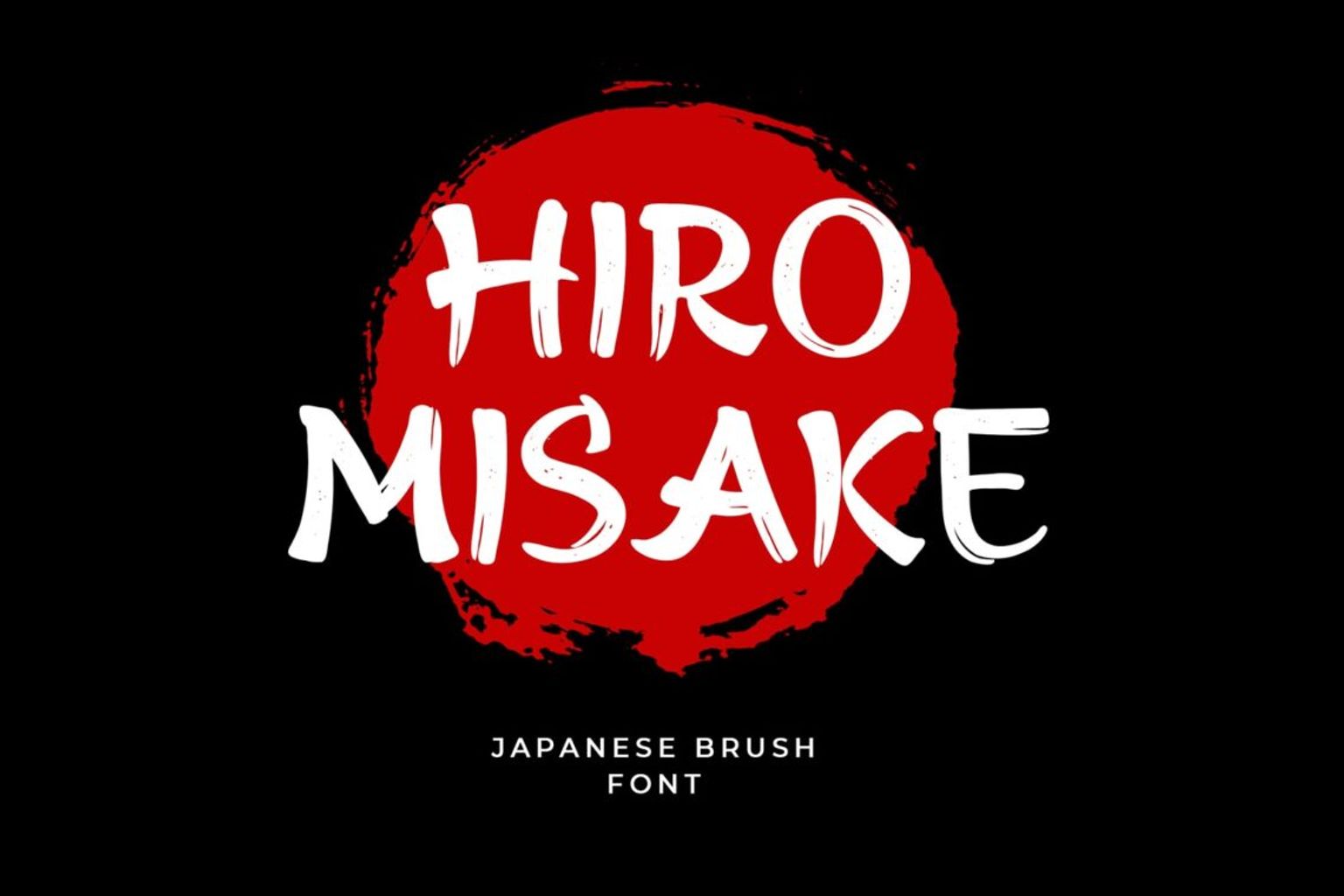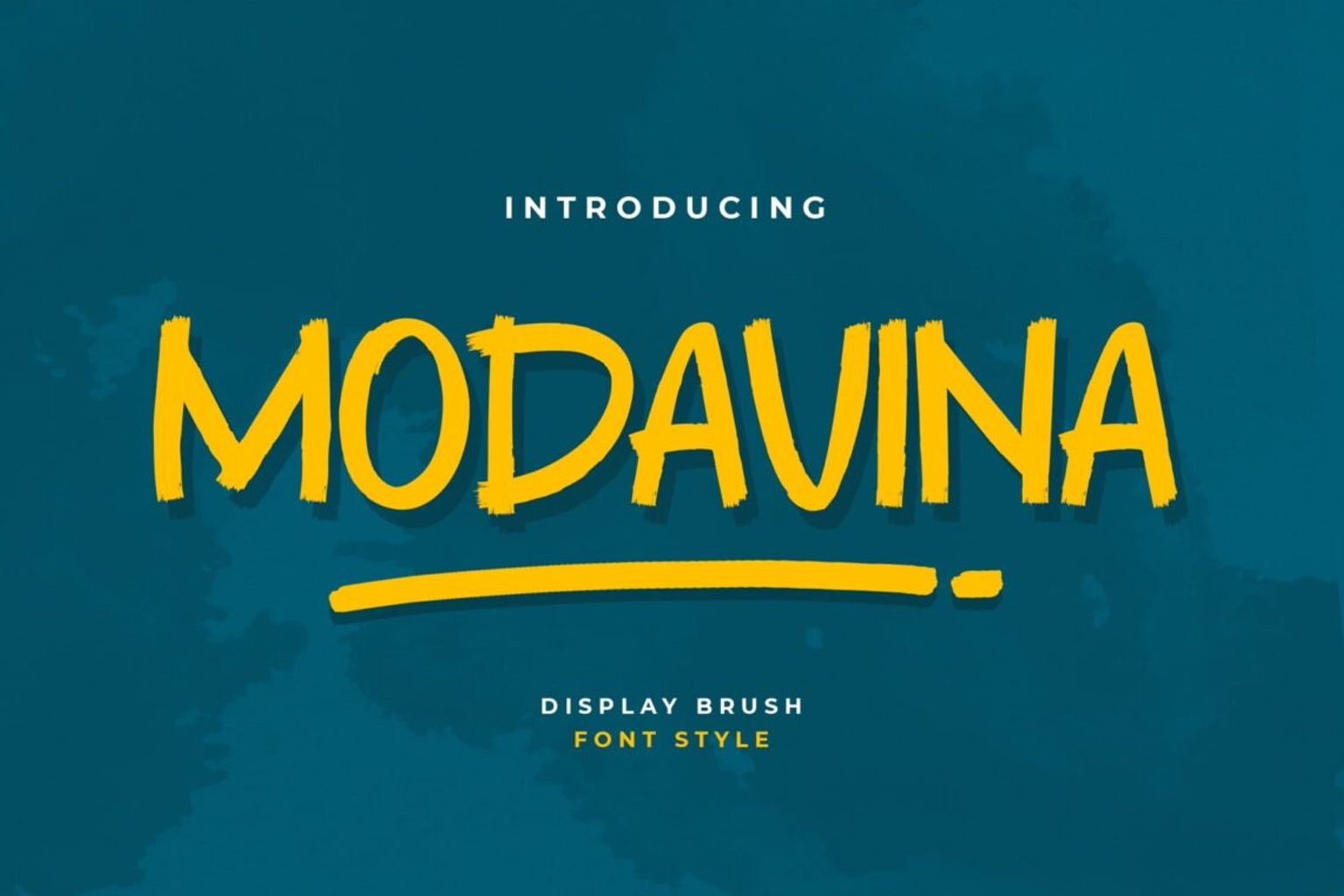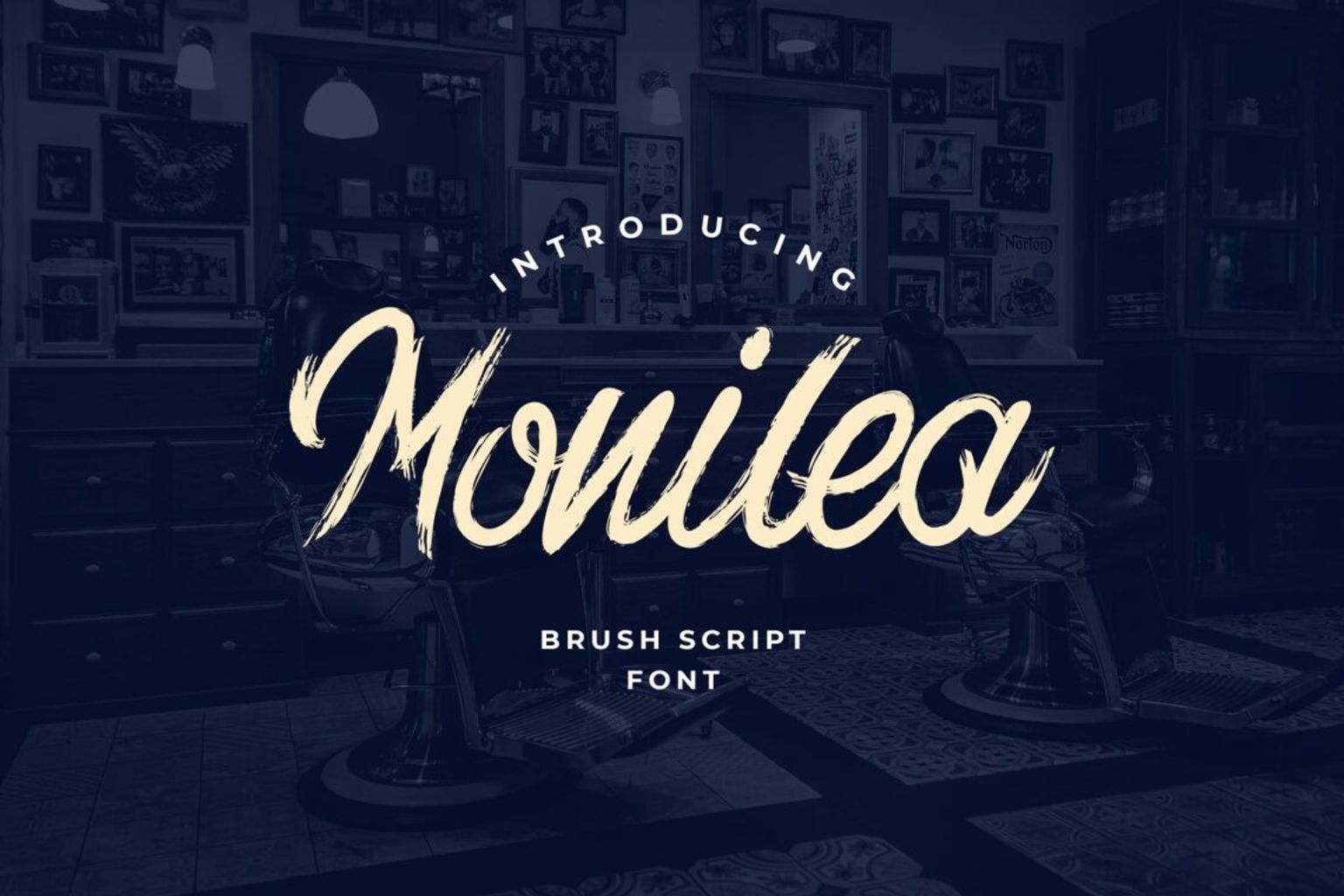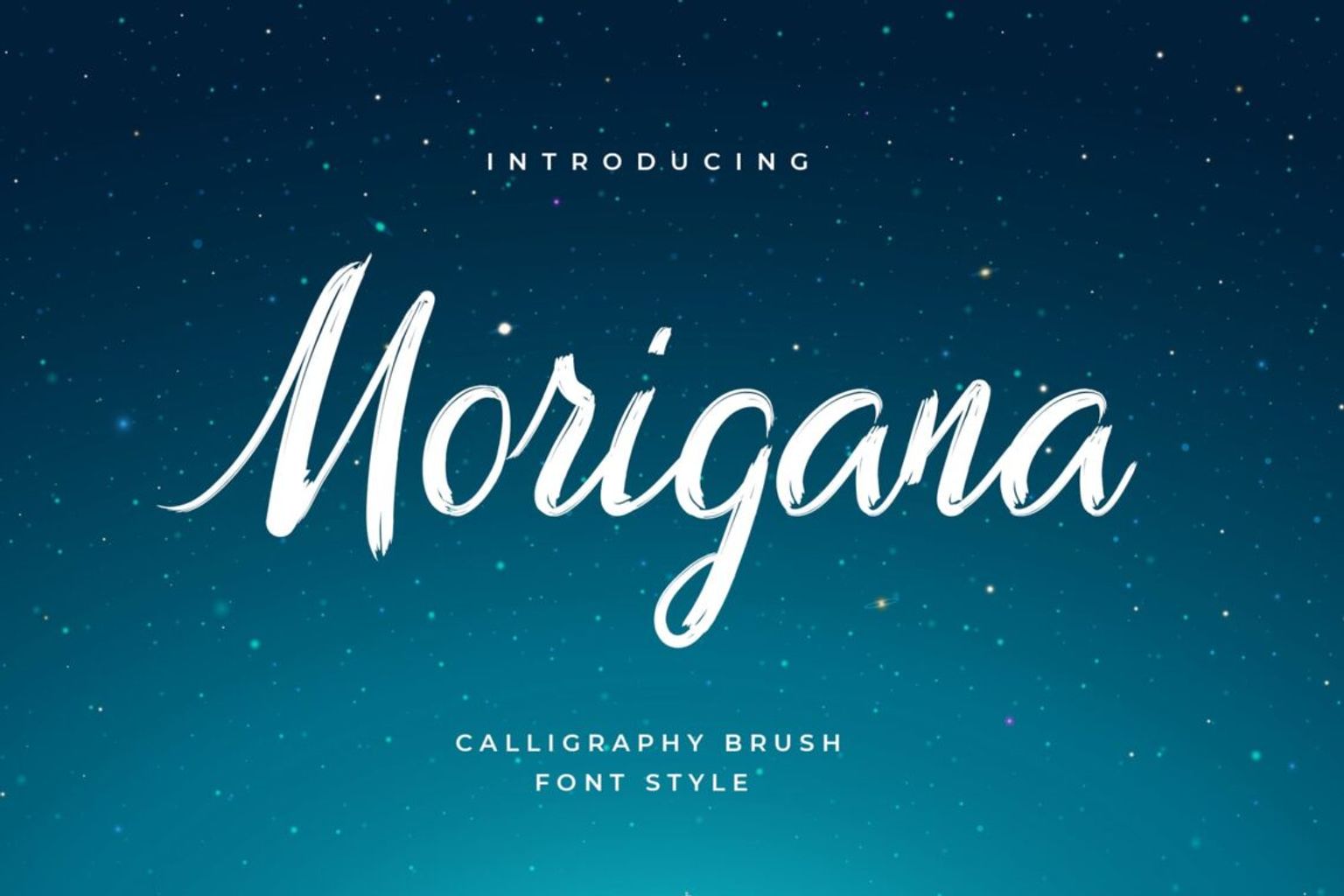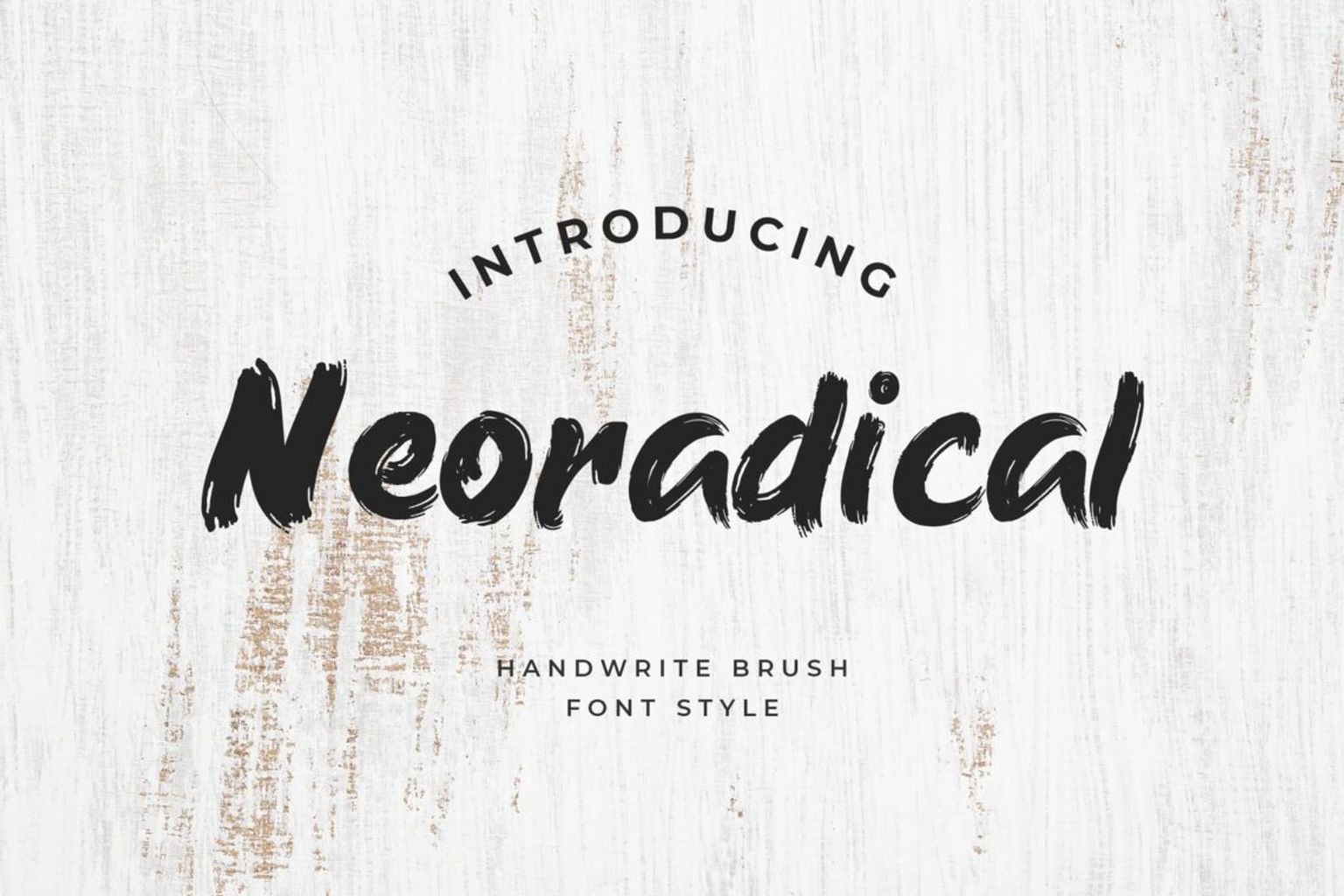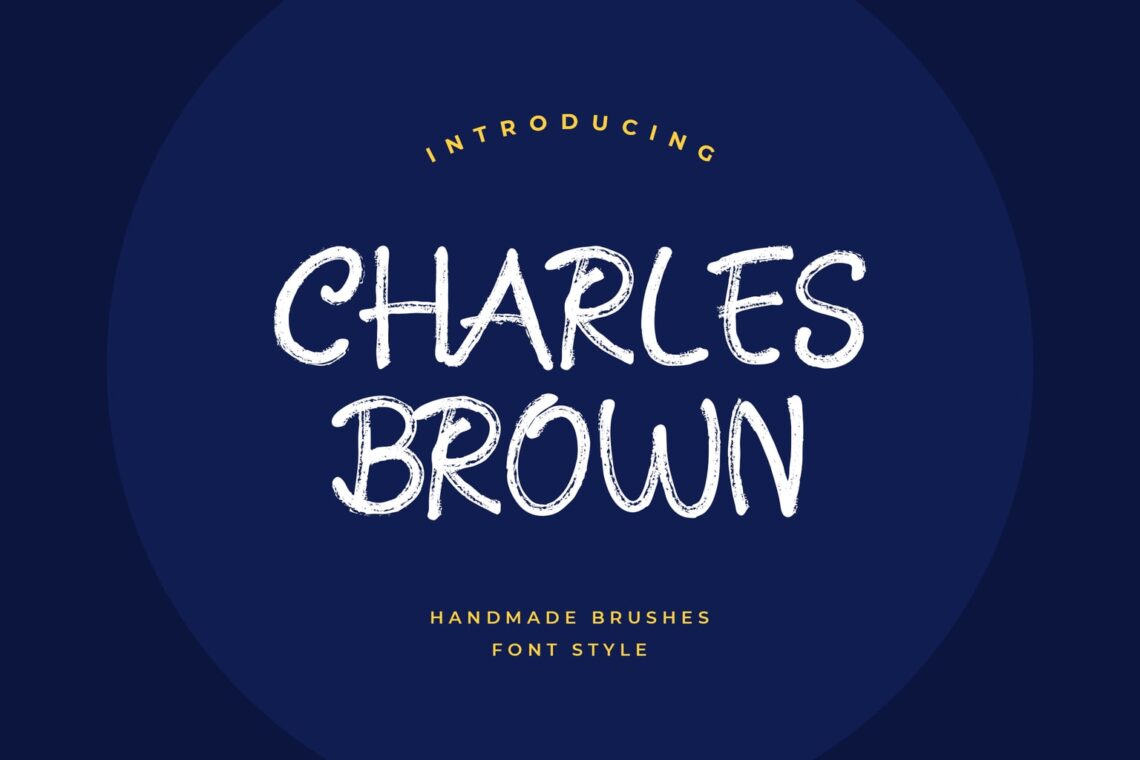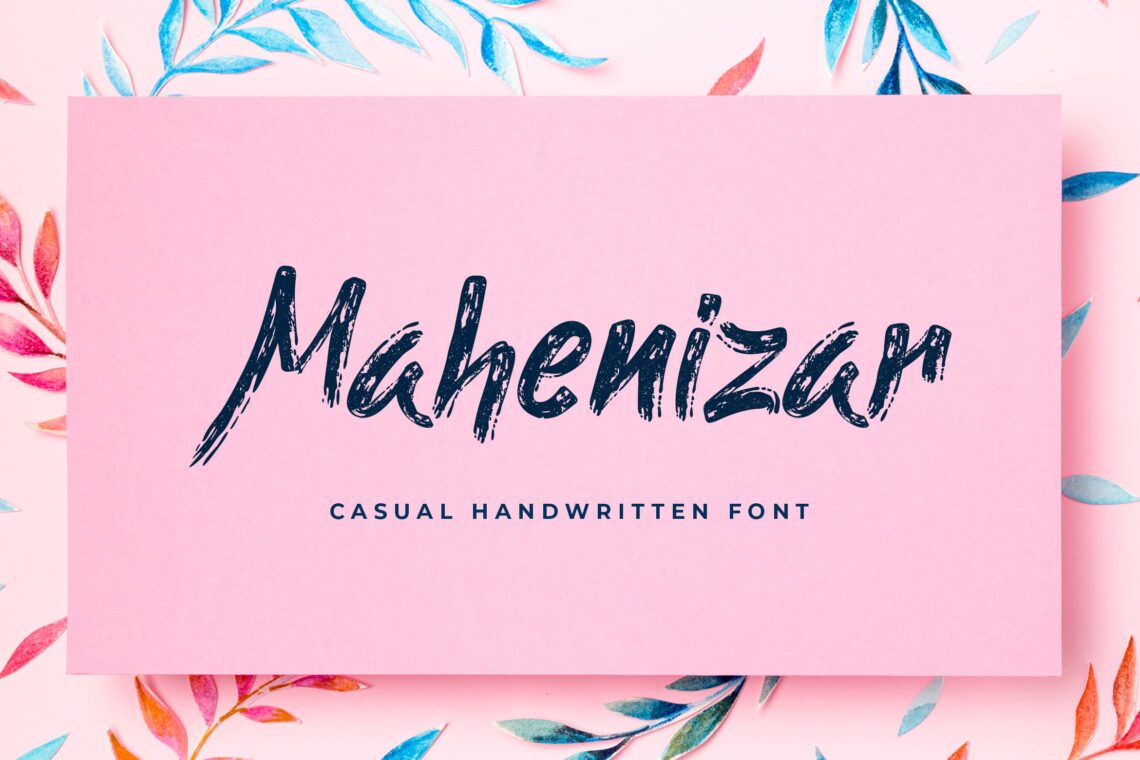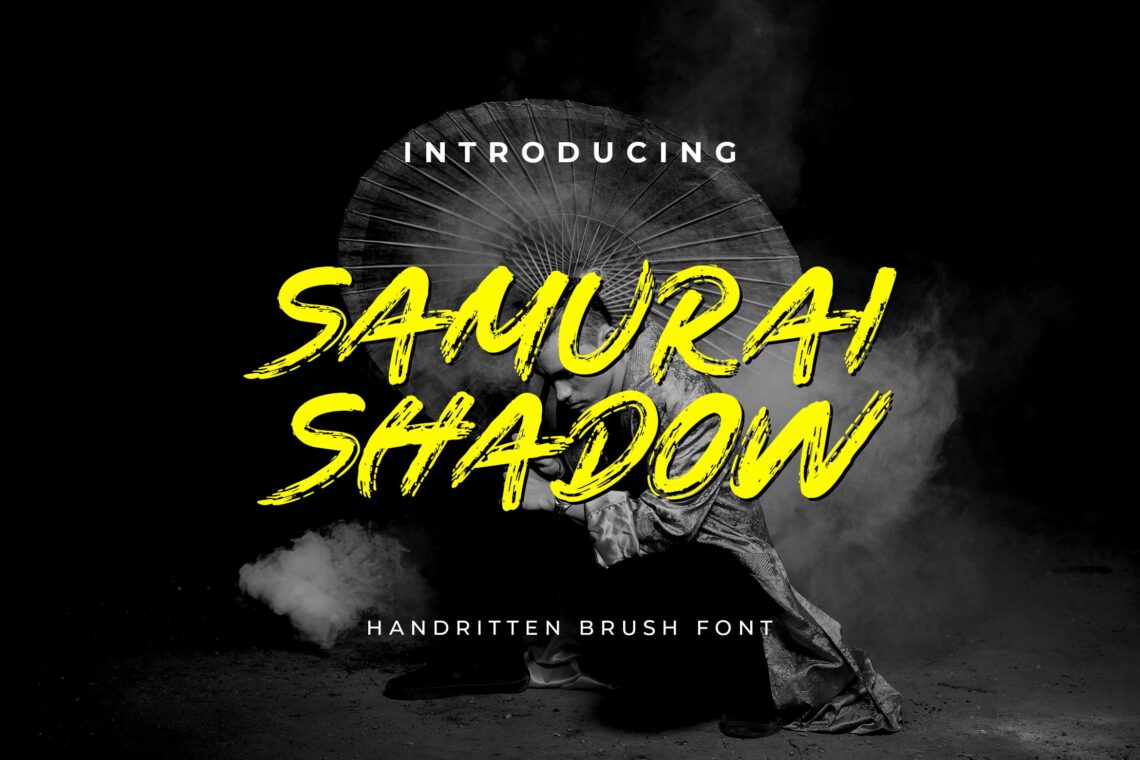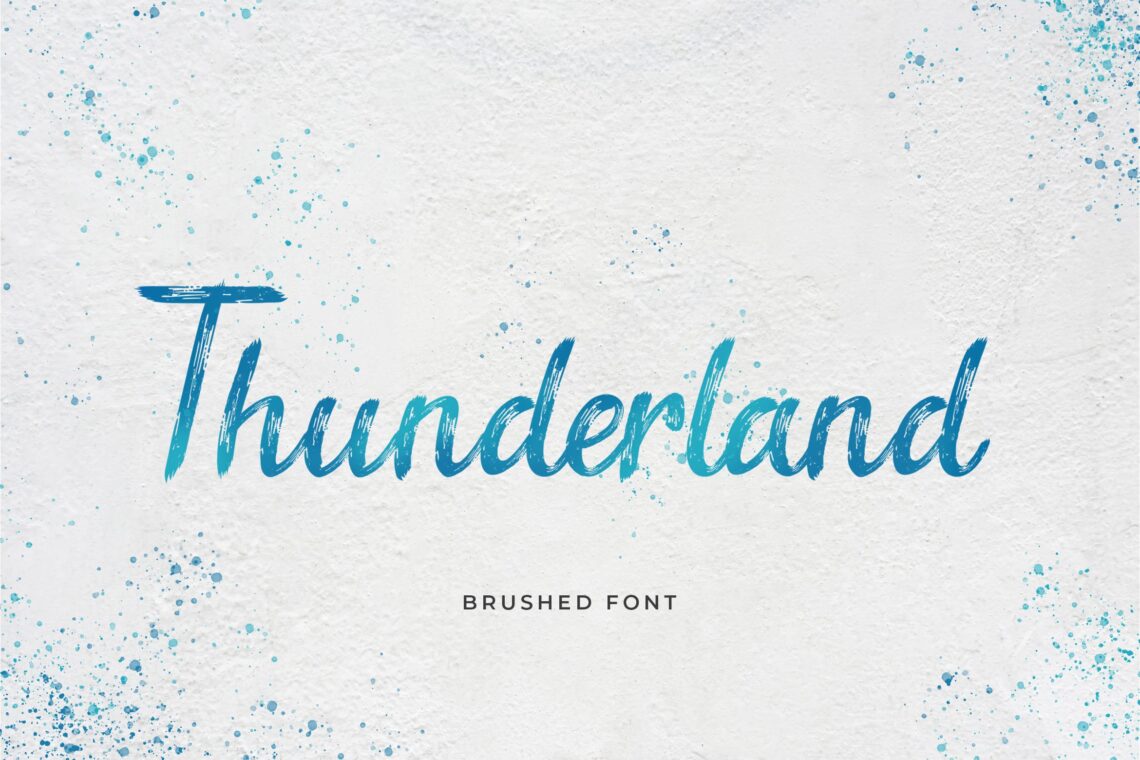
What Are the Different Types of Handwriting Fonts?
Handwriting fonts are made by writing instruments like chalk, brush, and pen or pencil. It can be made manually and digitally. The characteristic of it is various. One handwritten to another has different size and shape of letters. There is also the difference on its rhythmic repetition and the elements. The more realistic and natural a handwritten font, the more popular it will. Playful feel is what you could find in natural font. There are two major categories of it. They are cursive  or sans serif.
Cursive has all characters that connected in a flowing manner and it is originated from steel dippers or quills. Sans Serif which known as block letters or print script are fonts with no connection in each glyphs and readable more than cursive. Uppercase and lowercase are available for both style.
Here are some types of Handwriting Fonts:
1. Signature Fonts
It like a duplicate of handwriting personal style. It has low stroke contrast, but it depends on person’s writing style and instruments used. Low contrast is a result from writing by pen. We called it monoline. When people use brush pens, there will be higher contrast and thicker downstrokes. It depends on personal writing style and instrument for sure. Ballpoint pens are less thicker than markers. The various elements like glyphs in swashes, ligatures, and more make signature looks like the real handwriting as possible. Signature is used for logo, titles, personal branding, and more.
a. Right Signature
signature font
You may have it for your restaurant and cafe. Even to have it for your packaging food product, try it. Kids fashion need something different. Enjoy this font. A font that has a unique character that belongs to the Victorian serif family. The typographic style is simple and organized but has a different sharp angle in the middle. Therefore, it looks exclusive and modern. Its uppercase has an eye catching style. Therefore, it is said as handwritten font. It is suitable for young and trendy concept of brands like shoes, fashion, bags, hats, snacks, cafe, and publisher. It is a well attraction font design. The combination color light and dark tone in it make it looks brighter.
b. Annie Signature
fonts annie signature 1
This font has a combination of uppercase, lowercase letters, numbers, and punctuation. They are neat and clean. It makes this font can be applied and used on all types of projects like wedding and engagement invitation. It is hand write script. Look great for advertising logo. Suitable for T-shirt, food brands, and goodie bags. However, you need to take actions in its color. Make a contrast view between background and font would look good and eye catching. It has a combination of letters that are simple and upright. It shows  a formal and clean impression. This attractive and premium font is perfect for a variety of books, journals, and brands including projects that require clear and classy font types.
c. Amanda Signature
fonts amanda signature
It is made by original hand paintings. It makes this font seems to flow naturally. It is every impressive. A classical and vintage style of font. It is suitable  for a pleasant experience in reading texts and noticing headlines. It is used for subtext applications with the heavier weights too. This font is inspired by the  fonts in the 19th century. It happens for some fonts here. Check the most appropriate to you. purchase and edit. it looks great for any business. It is time to re-use it in the future. they will look neat and clear and suitable for being display title. By having the thick weights, It is perfect for adding image and make people interested in reading or seeing. Trust UI Creative to give you the best here.
d. Last Signature
The thin uppercase letter looks steady to hold your brand. Created to make a huge statement, it even comes in unique style and textures to offer a vintage feel to any work. Use for social  media content, blogs, simple brand, and invitation to bring a smile to your recipients faces. It looks like the real handwriting that used a thin pen in small brush.
2. Brush Fonts
This is a handmade font that used brushes and ink or brush pens. Brush types are sleek and cursive, thick and sans serif, polished fonts, and more casual fonts. A bouncing baseline in casual fonts bring more casual look. A realistic brush feel comes in a texture of the font. The thicker brush font is good to make a poster and signs, packaging, branding, a statement, and advertising. The thinner brush fonts are good for titles in layouts, social media quotes, and logotypes.
a. Hiro Misake
fonts hiro misake brush
You will see its artistic touch is simply seen on each edge. It looks like curves, but in the next side is like a geometric touch. The large foot in circular style looks fabulous. It is neat and in line. Proportional space makes the font easy to read. Therefore, if you need a font to insert in your content, use it. Even to be a title, it suits. The brand and logo will clear and clarity by this font no matter the logo shape of it. This is an interesting way to display and you can use it for any ages of clients. The technique to apply the brush is appearance here clearly.
b. Modavina
fonts modavina display brush
Modavina is suit for display. Whether it is for casual style or semi-formal style. Even it is in brush style, the space is proportional. It makes this font clear and clean. It is readable and you do not need to doubt on having it as a title of movie. There is no additional curve and point on each part or side of it. All you need is to find the suit contrast and make it bright. It is simple, attractive, and look like a signature. Its uppercase has an eye catching style. Therefore, it is said as handbrush.